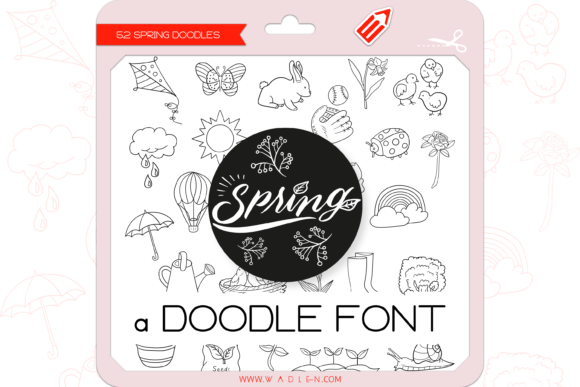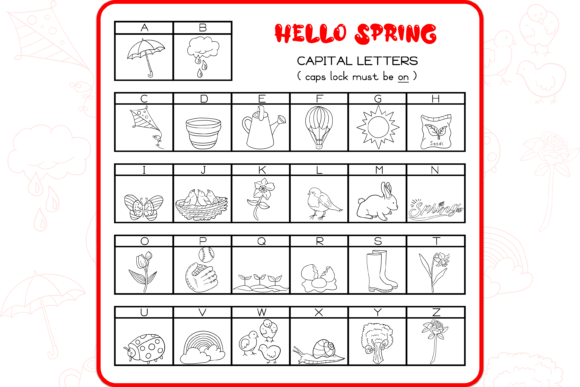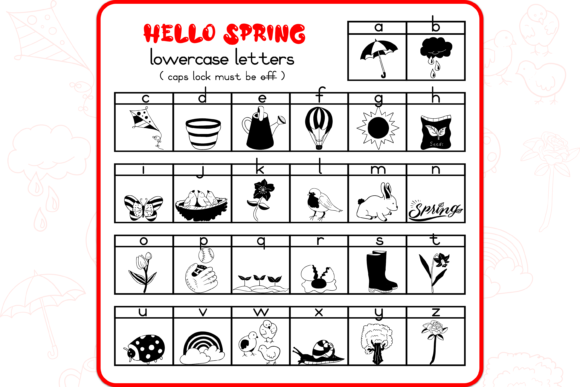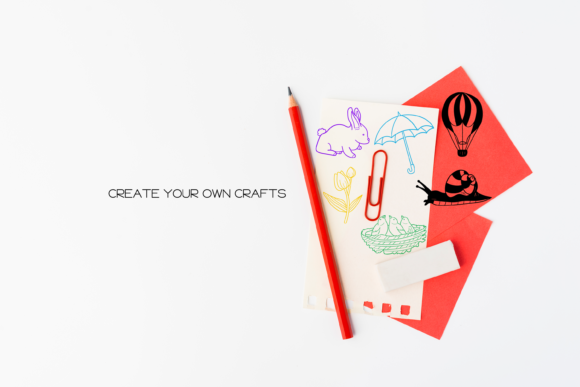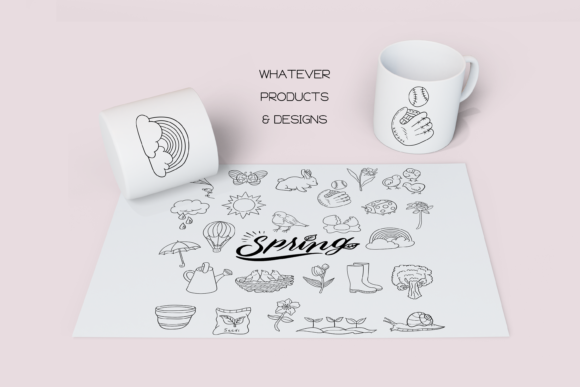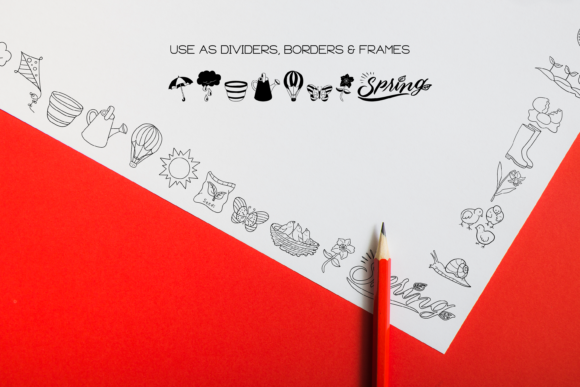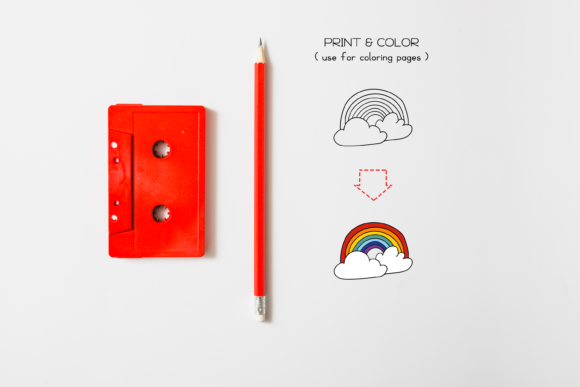
Spring Font
About Spring Font
Absolutely! Spring is a unique and cute dingbats font that can add a touch of charm and whimsy to your creative projects. With its collection of delightful doodles inspired by the season, Spring can make your arts truly outstanding. Here are some ways you can use the Spring font to enhance your designs:
1. Seasonal Cards: Create adorable and cheerful seasonal cards using the Spring font. Use the doodles as decorative elements or borders to complement your message. Whether it’s for Easter, Mother’s Day, or any spring-themed occasion, the Spring font will bring a fresh and playful vibe to your cards.
2. Nature-themed Designs: Incorporate the Spring font into your nature-themed designs. Whether you’re creating artwork, posters, or invitations for a garden party, the doodles in the font can add a whimsical touch and celebrate the beauty of the outdoors.
3. Digital Scrapbooking: Enhance your digital scrapbooking layouts with the Spring font. Use the doodles as embellishments or frames for your photos and journaling. The font’s unique and cute style will bring a cheerful and joyful atmosphere to your scrapbook pages.
4. Social Media Posts: Make your social media posts more engaging and eye-catching with the Spring font. Use the doodles as icons or decorative elements to enhance your visual content. Whether you’re sharing springtime quotes, showcasing your latest artwork, or promoting seasonal products, the Spring font can help your posts stand out.
5. Party Decorations: Create charming party decorations using the Spring font. Incorporate the doodles as part of your banners, cupcake toppers, or party favors. The font’s cute and unique elements will add a festive and playful touch to any spring celebration.
6. Art Prints: Design captivating art prints with the Spring font. Use the doodles to create whimsical and nature-inspired illustrations that can be framed and displayed as standalone pieces or as part of a collection. The font’s cute and unique style will make your art prints truly standout.
Remember to experiment with different combinations of the Spring font, other typography, and color palettes to create unique and visually captivating designs. Let the font’s unique and cute style inspire your creativity and bring a touch of springtime magic to your arts!